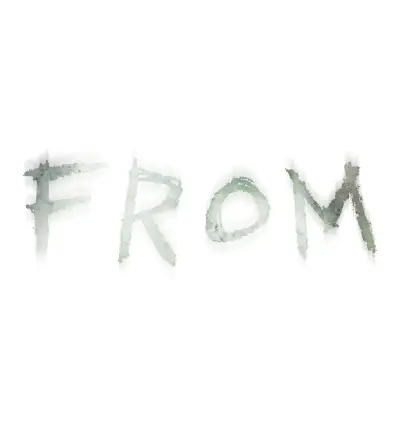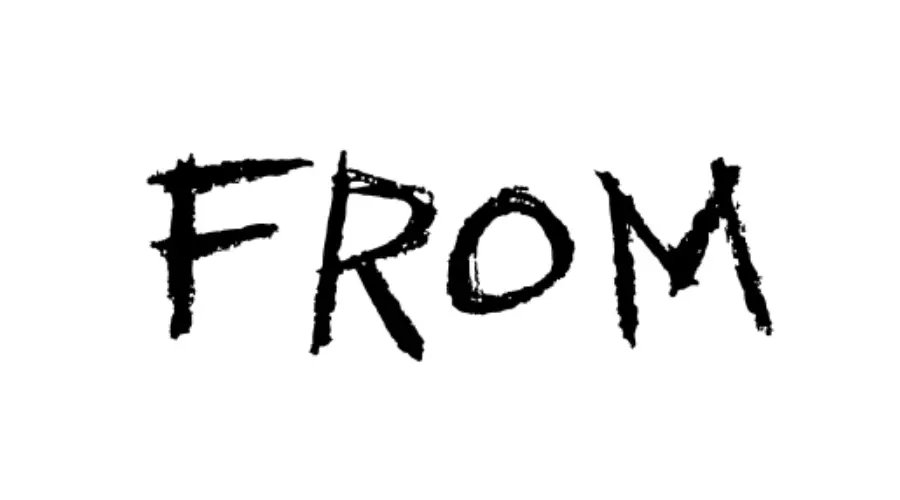
Short answer: the FROM series uses distressed, irregular title artwork. No official series or design source reviewed here identifies Afraid as the commissioned logo typeface. Afraid is a close visual alternative, not a confirmed official font.
Afraid | Close visual match
Official artwork versus Afraid
The official Paramount Global Content listing for FROM provides the series reference. The title’s scraped edges, uneven opacity, and broken crossbars look hand-treated. Afraid captures the same horror mood, especially in the rough F, open R, and worn stroke texture, but a visual resemblance does not prove that the font was used for the official artwork.
Confidence summary
- Official series artwork: confirmed by the rights-holder’s content listing.
- Afraid as the official series font: not confirmed; close visual match only.